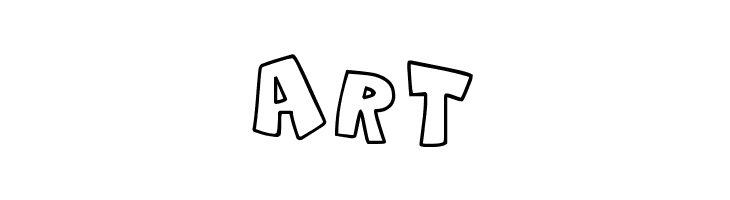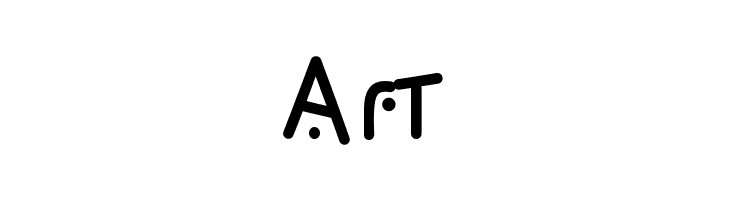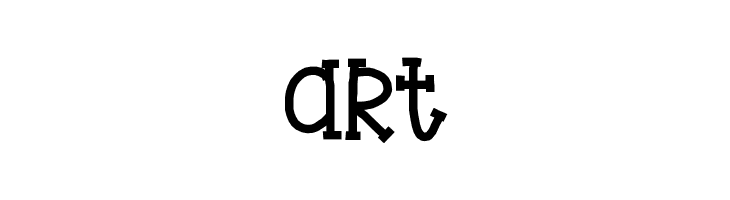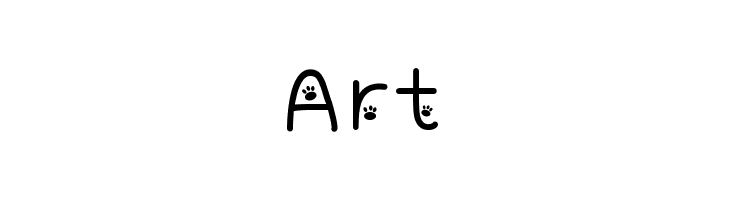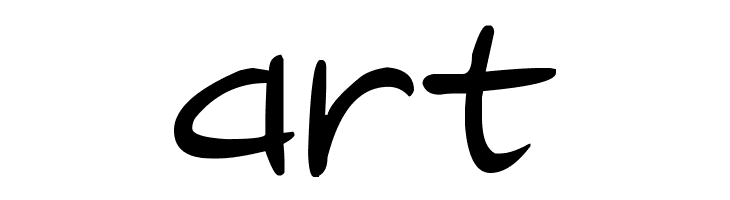
( Fonts by Cannot Into Space Fonts )
A playful, bold outline font with a cartoonish, hand-drawn style.
( Fonts by Cannot Into Space Fonts )
A playful, handwritten font with a whimsical and informal style.
( Fonts by K26 Fonts )
A playful, hand-drawn chalk-style font with bold, irregular letterforms.
( Fonts by Shara Weber )
A playful and quirky font with circular dots integrated into each character.
( Fonts by Galdino Otten )
A playful, rounded font with a marshmallow-like, bubbly appearance.
( Fonts by Jen Jones )
A playful, hand-drawn font with a whimsical and cartoonish style.
( Fonts by Sheila Burns )
A playful font with paw print embellishments on each character.
A playful, hand-drawn font with a whimsical, cartoonish style.
( Fonts by Darrell Flood )
A playful, hand-drawn font with a cartoonish, whimsical style.